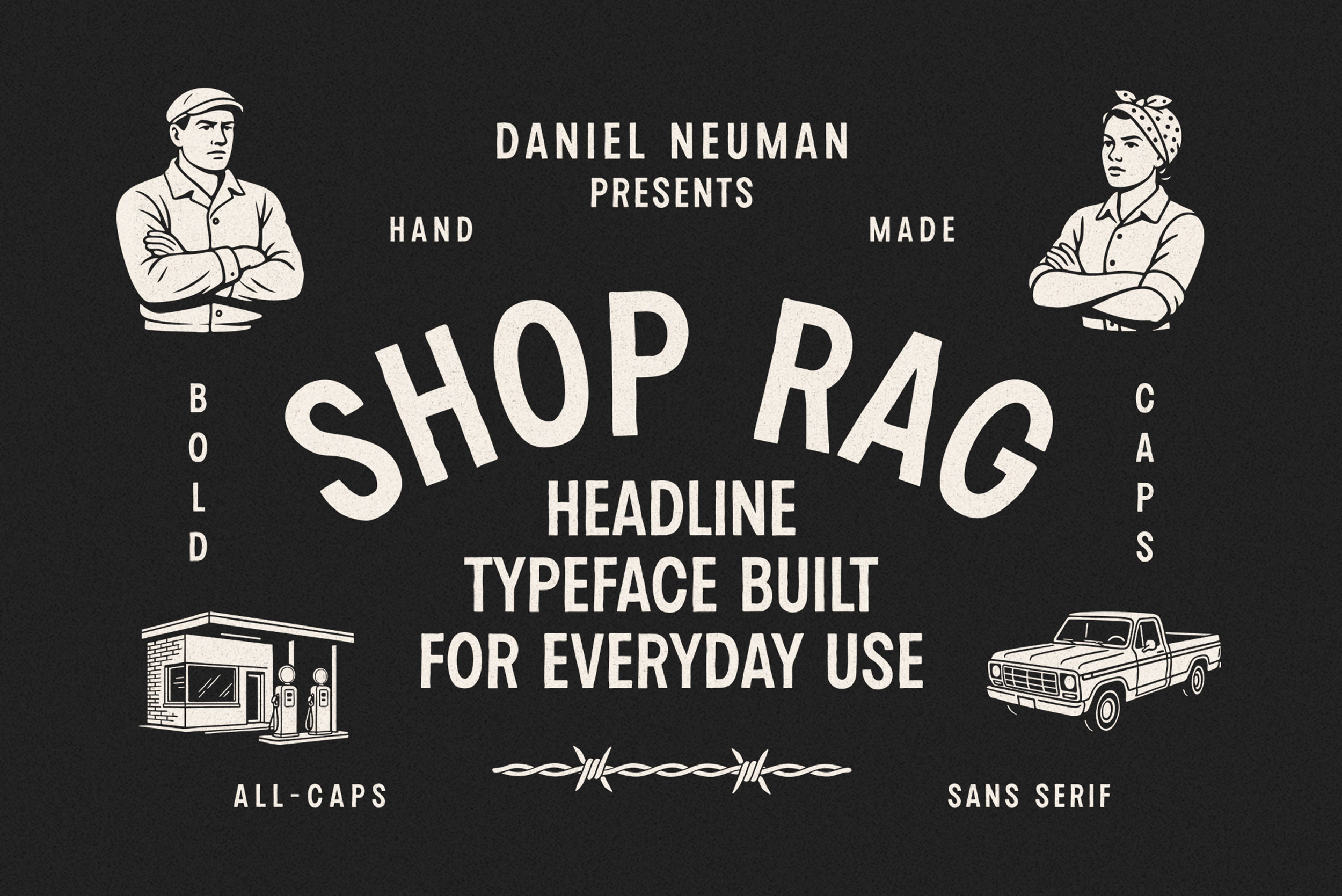
Shop Rag | Rugged Display Typeface
Shop Rag is the kind of font your grandpa would've used. Inspired by vintage newspapers, old service stations, and everyday tools of the trade, it’s clean, tall, and a little rough around the edges—just like it should be. Whether you're branding a garage, laying out a poster, or printing tees for your crew, Shop Rag shows up ready.
Contains upper-case A-Z, numbers 0-9 and basic punctuation. This font fully supports around 70 languages.